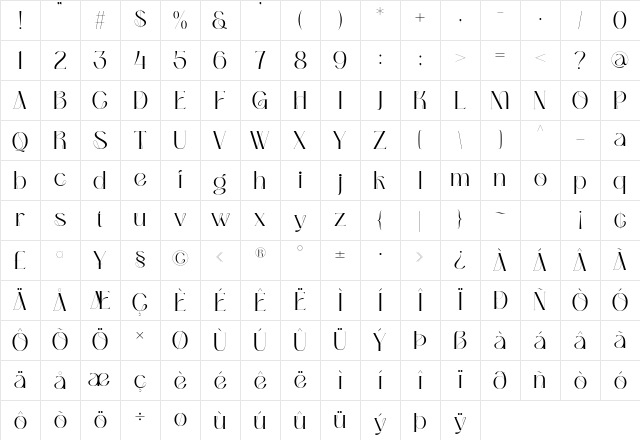
Complete Bumerang Regular glyph index. Displaying only characters natively supported by Bumerang Regular font.
Bumerang is a composed and adaptable typeface that performs quietly and consistently across a wide range of design contexts.